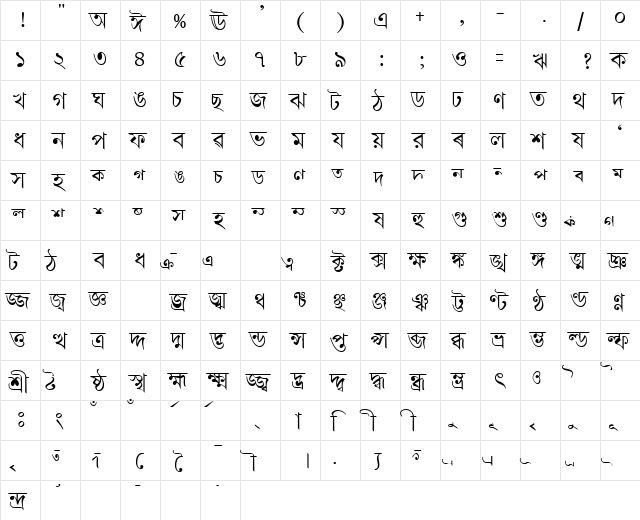
AkrutiBngSharat Normal
Design Context for AkrutiBngSharat Typeface
AkrutiBngSharat is a composed and adaptable typeface that performs quietly and consistently across a wide range of design contexts.